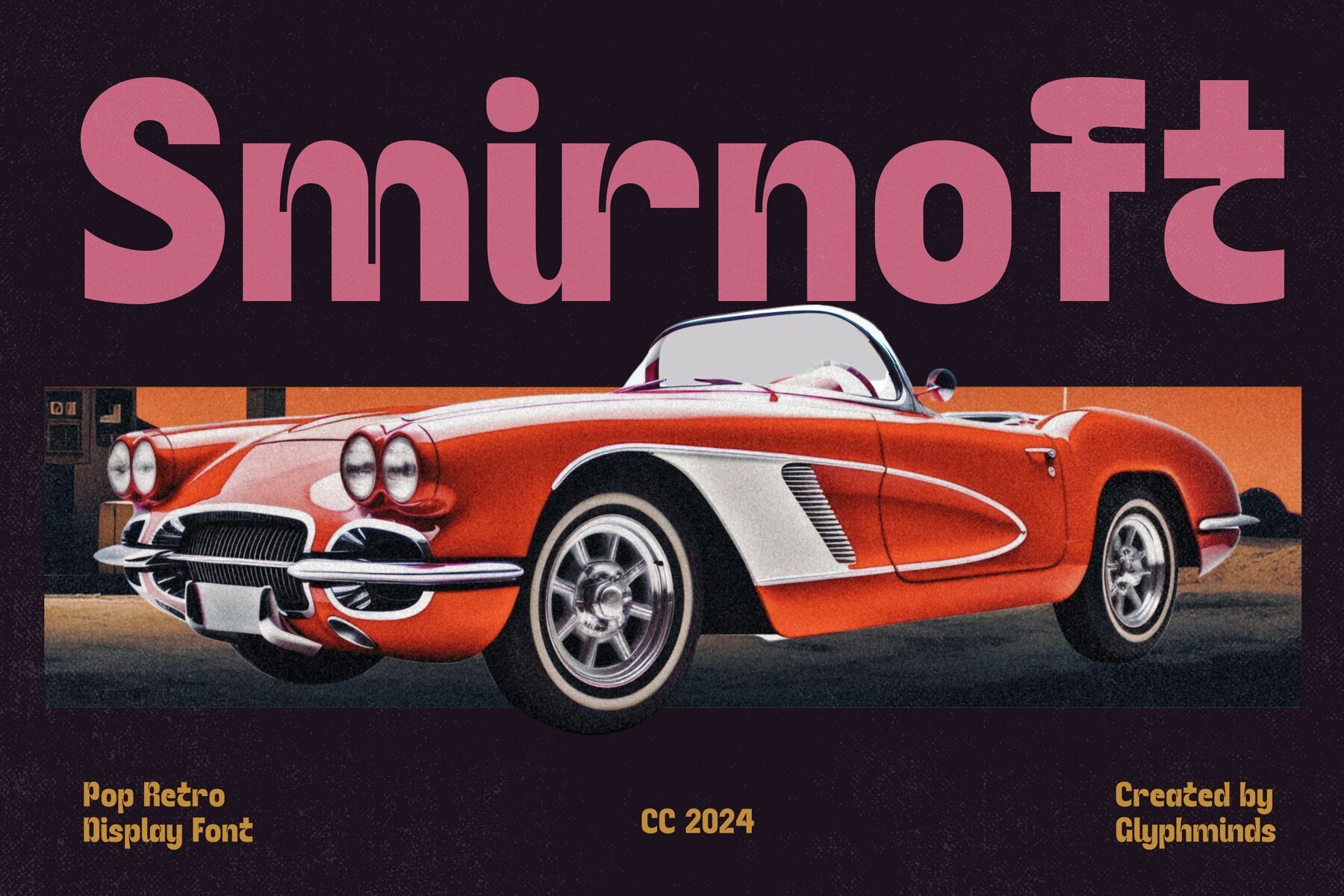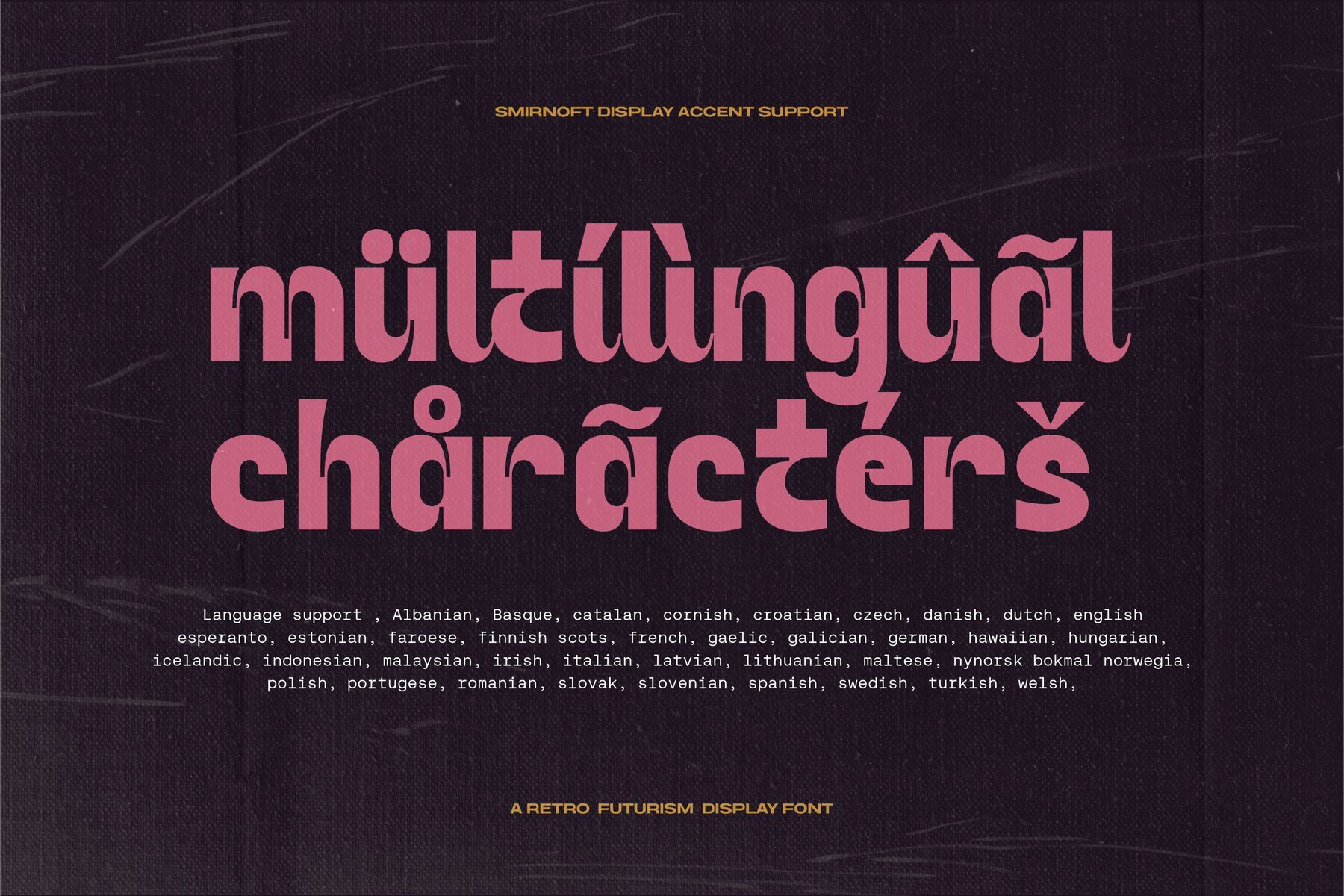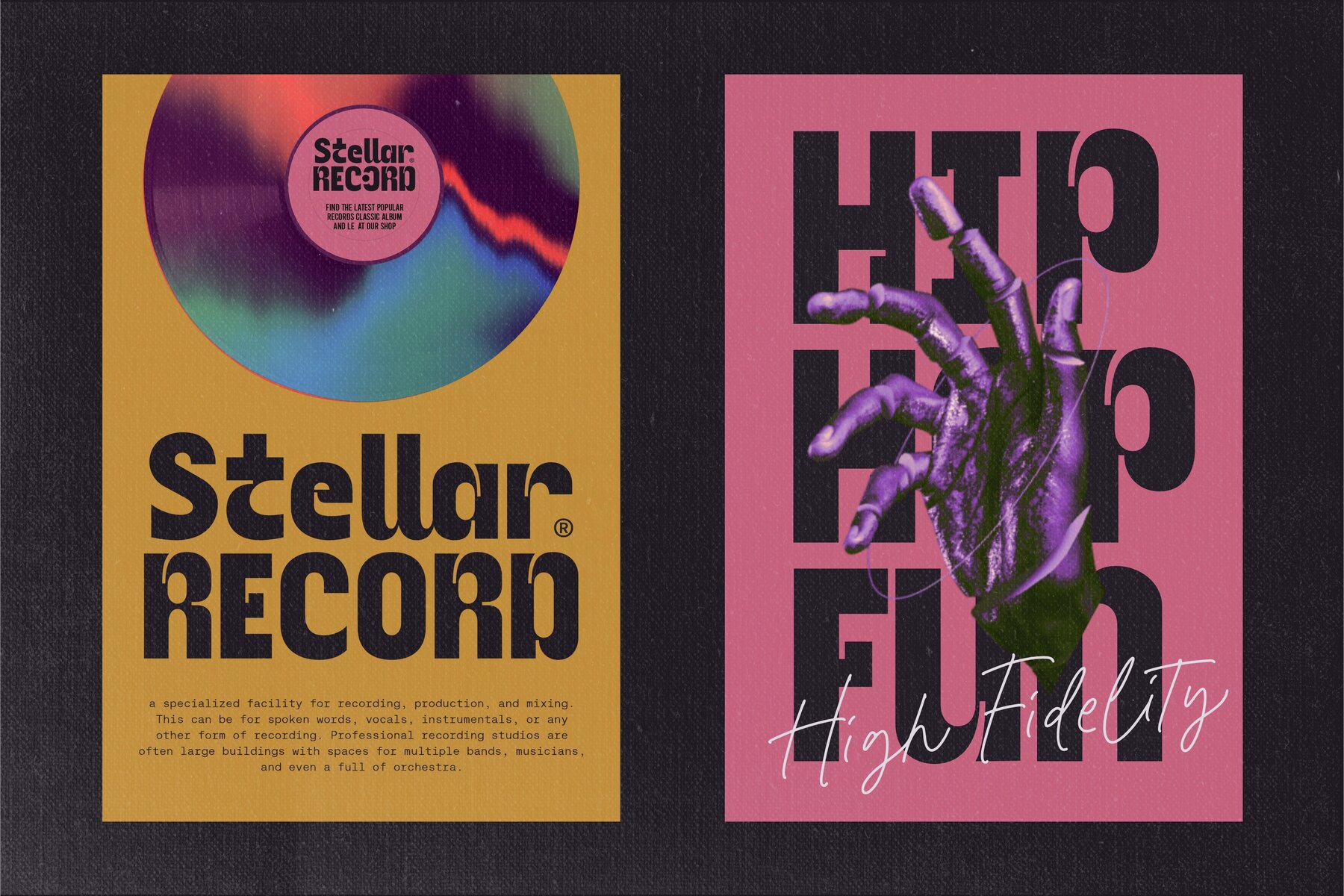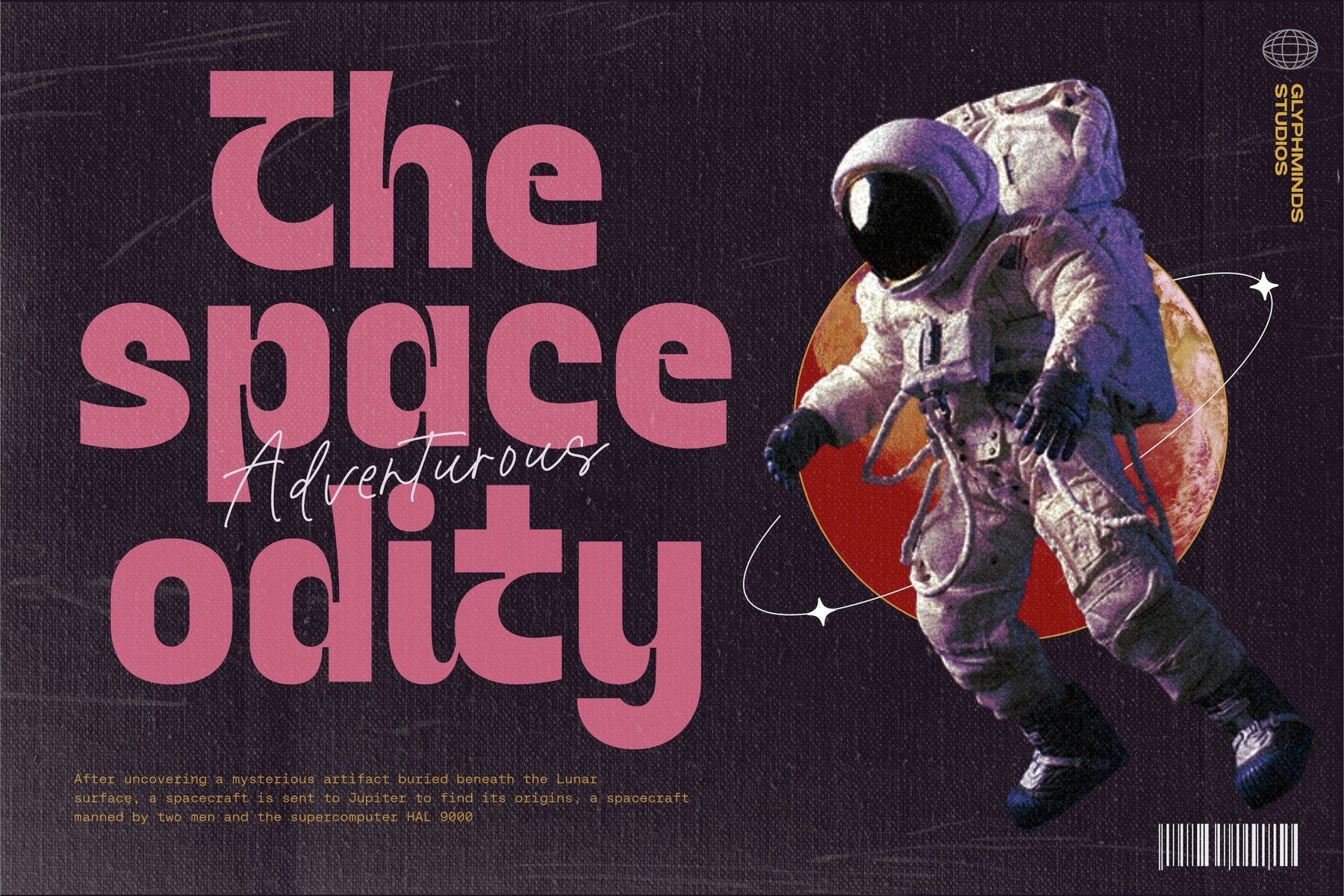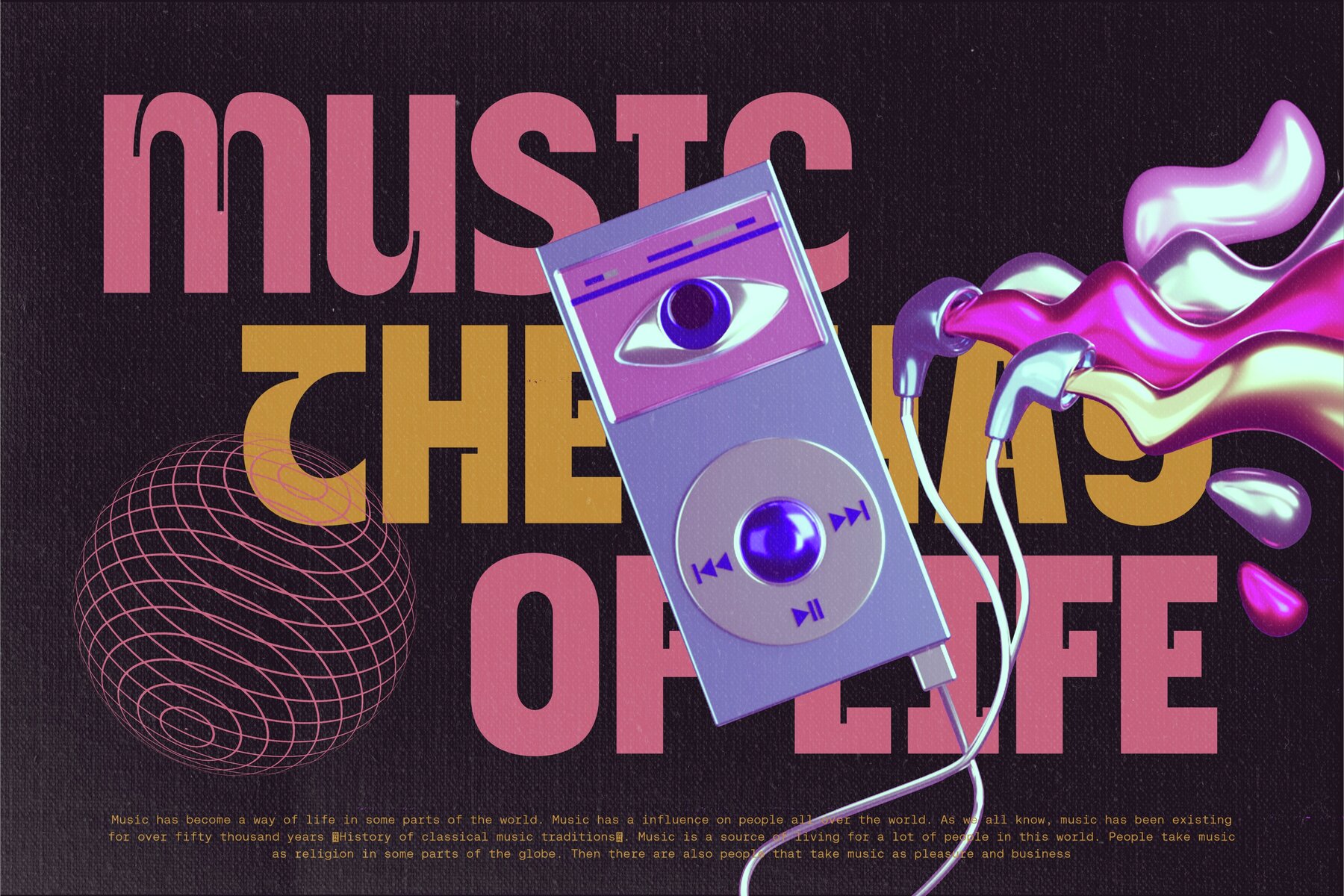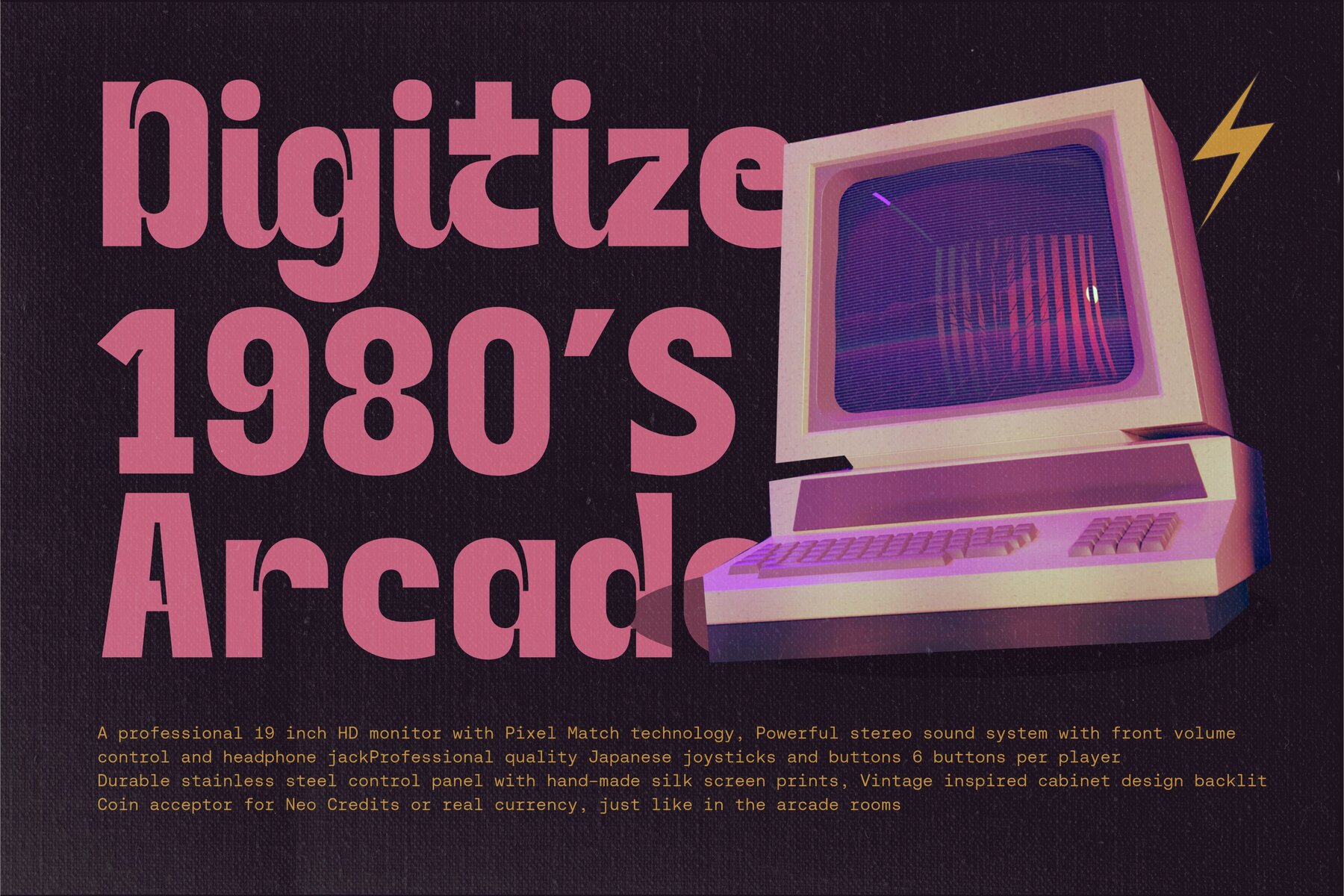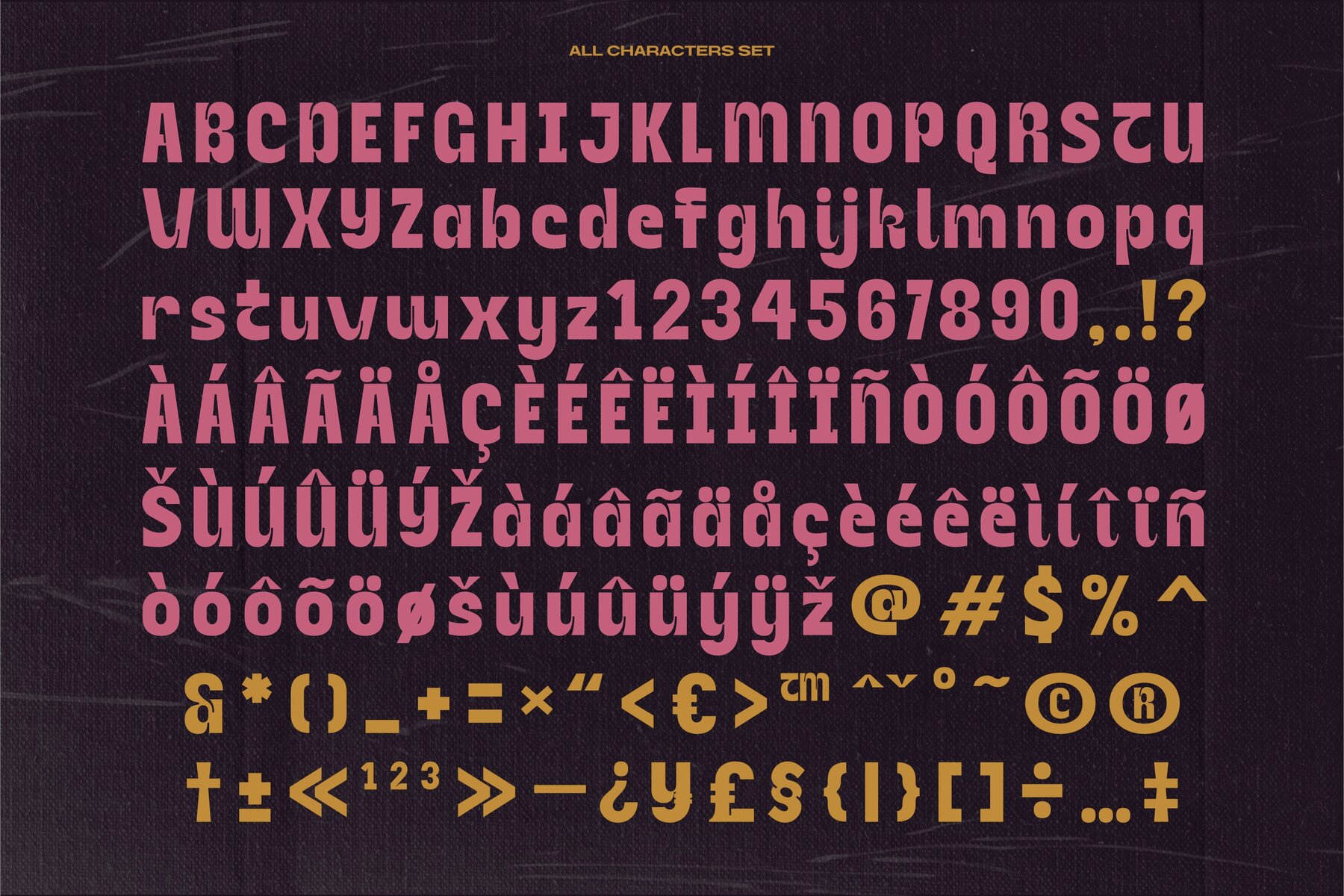
Smirnoft Font
Smirnoft Regular
Smirnoft is a pop retro display font that seamlessly blends vintage charm with modern design. Drawing inspiration from the iconic aesthetics of the mid-20th century, Smirnoft adds a nostalgic yet forward-thinking touch to your creative projects. Ideal for posters, logos, and social media graphics, its bold and curvy letterforms ensure your text commands attention.
The font's unique style captures the essence of retro-futurism, making it an essential tool for designers seeking to merge past and future vibes in their work. In addition to its eye-catching design, Smirnoft supports multilingual text, enhancing its versatility across various project needs.